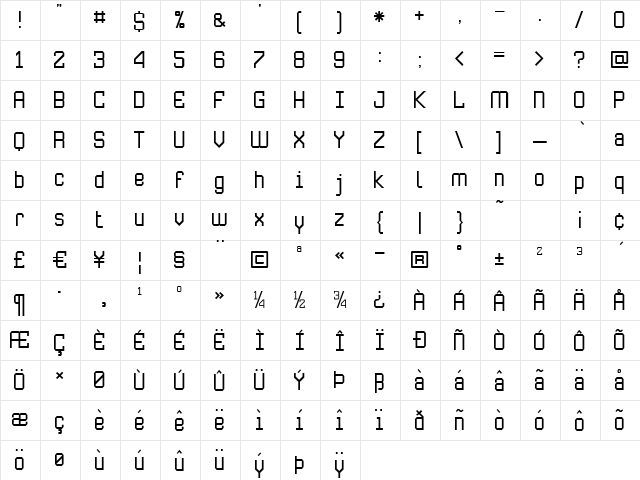
Submarine ExtraLight
| Style | ExtraLight |
Design Context for Submarine Typeface
Submarine offers clean, dependable letterforms without strong stylistic allegiance, making it a practical choice for designers who need flexibility. The delicate stroke weight brings airiness and refinement to layouts.